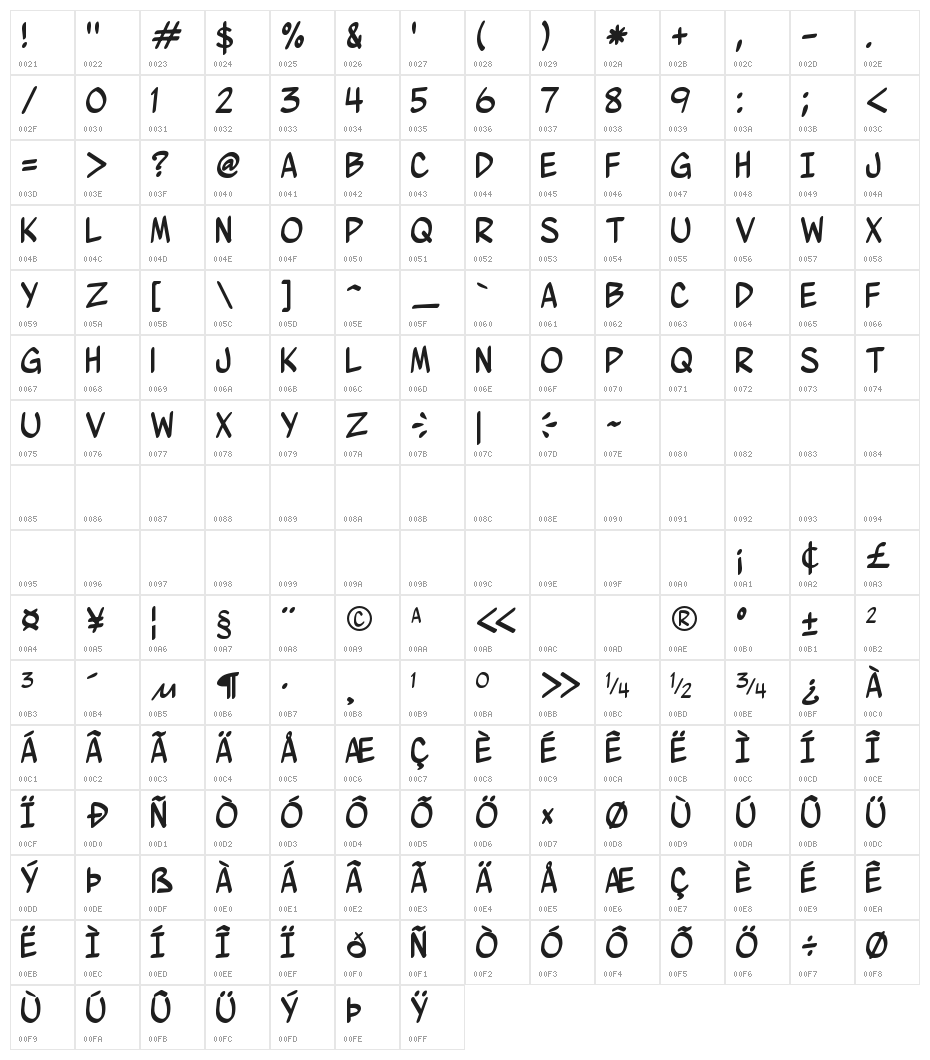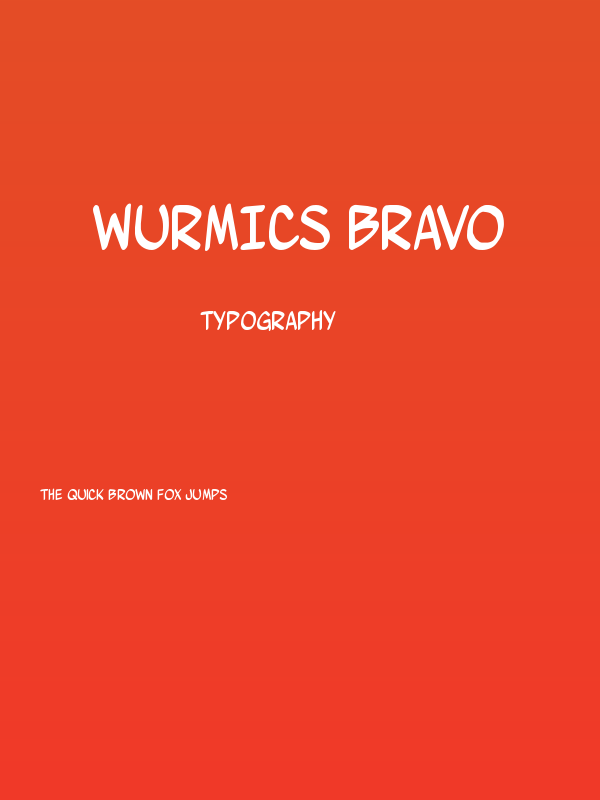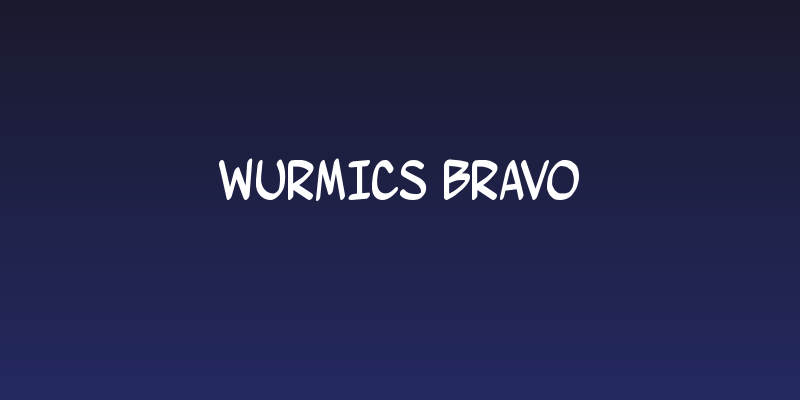
Wurmics Bravo Font
Wurmics Bravo Description
This font features a playful and informal style, characterized by its bold and rounded letterforms. The strokes are consistent in thickness, giving it a uniform appearance. The letters have a hand-drawn quality, with slight variations that add to its casual charm. The overall look is approachable and friendly, making it suitable for projects that require a personal touch. The numerals and special characters maintain the same playful aesthetic, ensuring consistency across all text elements.
| Proposed Projects | Ideal for children's books, comic strips, casual branding, and playful invitations. |